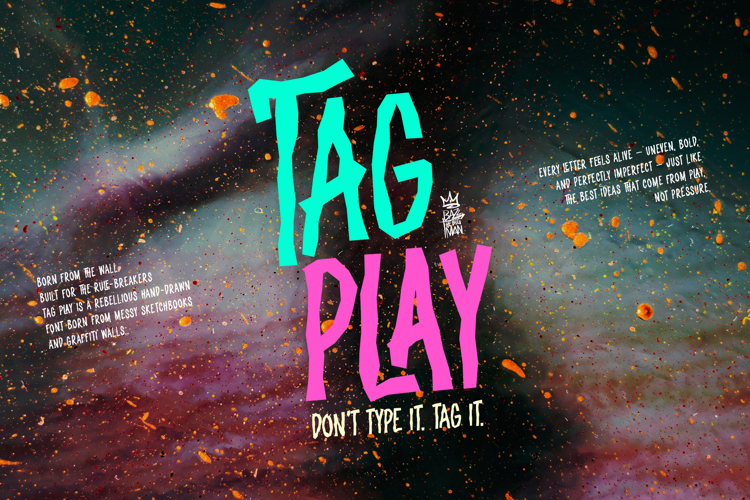
TAG PLAY – Urban Graffiti Display Font
TAG PLAY is a bold hand-drawn display font inspired by street graffiti, playful energy, and the art of imperfection. Each letter is crafted with dynamic brush strokes that burst with attitude and creativity.
Perfect for posters, music covers, streetwear branding, YouTube thumbnails, sport graphics, and any design that needs a punch of urban youth spirit.
TAG PLAY adds movement, rebellion, and color to every composition — it doesn’t just type, it tags your message with power.
Bring your words to life with the freedom and chaos of the streets — with TAG PLAY!